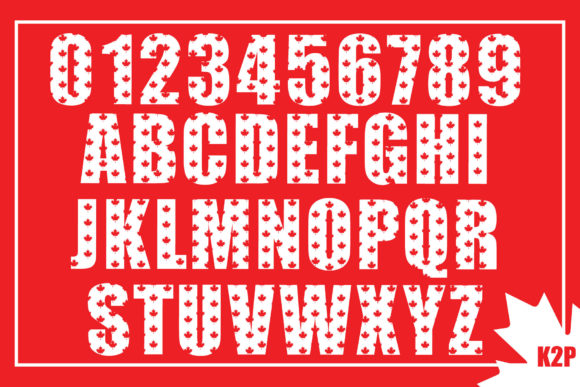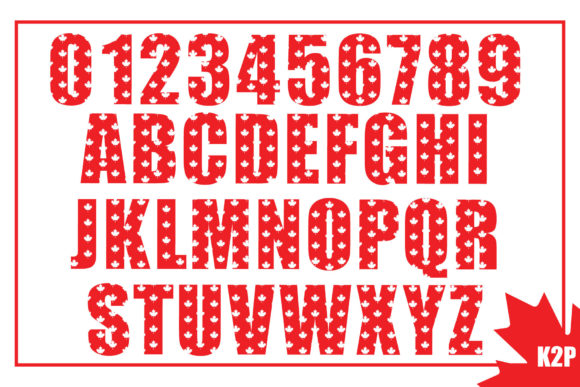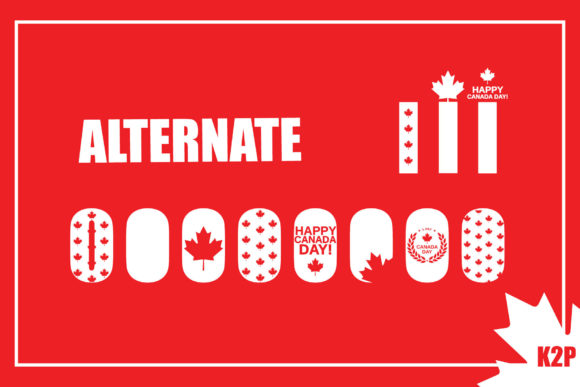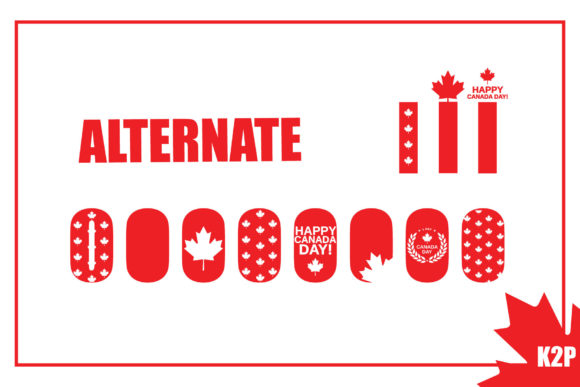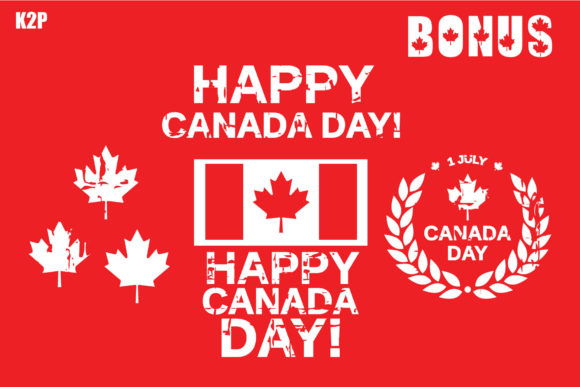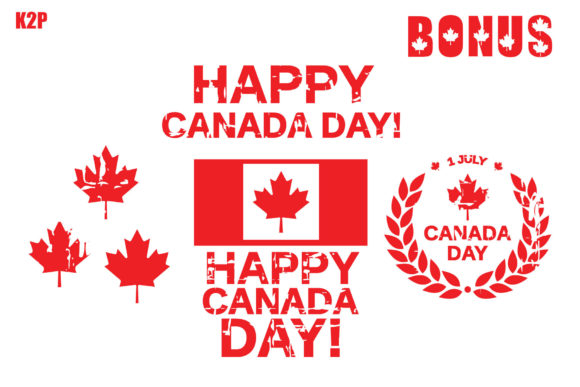
Happy Canada Day Font: A Festive and Unique Decorative Font for Your Designs
Are you looking for a font that captures the essence of Canada Day celebrations? Look no further than the Happy Canada Day font! This thick lettered and incredibly unique decorative font is perfect for various design ideas, particularly those related to festive events and games. In this article, we’ll explore the features and benefits of the Happy Canada Day font, and how you can use it to create stunning designs.
What is Happy Canada Day Font?
Happy Canada Day font is a specially designed font that embodies the spirit of Canada Day celebrations. It’s a decorative font that’s perfect for creating eye-catching designs, from party invitations to social media graphics. The font’s thick letters and unique design make it stand out from other fonts, ensuring your designs will grab attention.
Key Features of Happy Canada Day Font
The Happy Canada Day font comes with several key features that make it a must-have for designers and crafters:
- Thick Lettered: The font’s thick letters make it perfect for creating bold and eye-catching designs.
- Unique Design: The font’s unique design sets it apart from other fonts, ensuring your designs will be memorable.
- Festive and Playful: The font’s festive and playful vibe makes it perfect for designs related to Canada Day celebrations and other festive events.
Benefits of Using Happy Canada Day Font
Using the Happy Canada Day font offers several benefits for designers and crafters:
- Versatile: The font can be used for various design ideas, from party invitations to social media graphics.
- Unique Designs: The font’s unique design ensures your designs will stand out from the crowd.
- Festive and Fun: The font’s festive and playful vibe adds a touch of fun and excitement to your designs.
Design Ideas Using Happy Canada Day Font
The Happy Canada Day font is perfect for various design ideas, including:
- Canada Day Invitations: Create eye-catching invitations for Canada Day parties and celebrations.
- Social Media Graphics: Use the font to create stunning social media graphics, from Facebook posts to Instagram stories.
- Party Decorations: Create party decorations, such as banners and signs, using the Happy Canada Day font.
- Games and Activities: Use the font to create games and activities, such as word searches and crossword puzzles, for Canada Day celebrations.
Tips for Using Happy Canada Day Font
Here are some tips for using the Happy Canada Day font:
- Experiment with Colors: Try pairing the font with different colors to create unique and eye-catching designs.
- Mix and Match: Mix and match the font with other fonts to create interesting and dynamic designs.